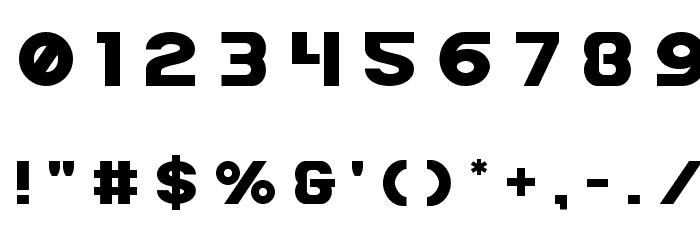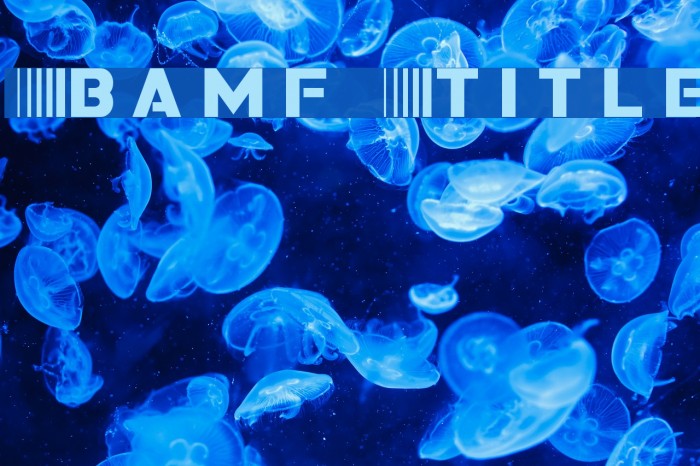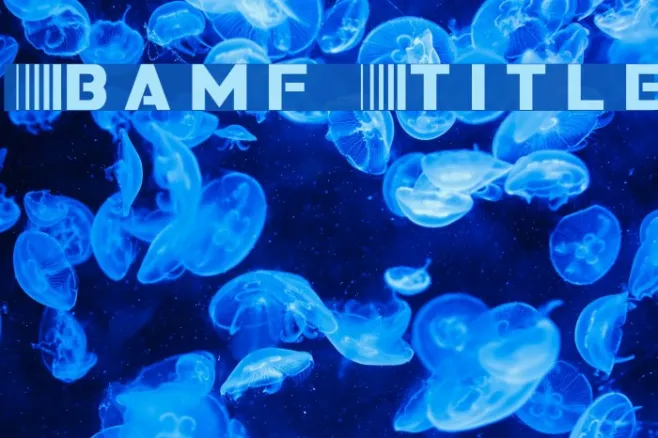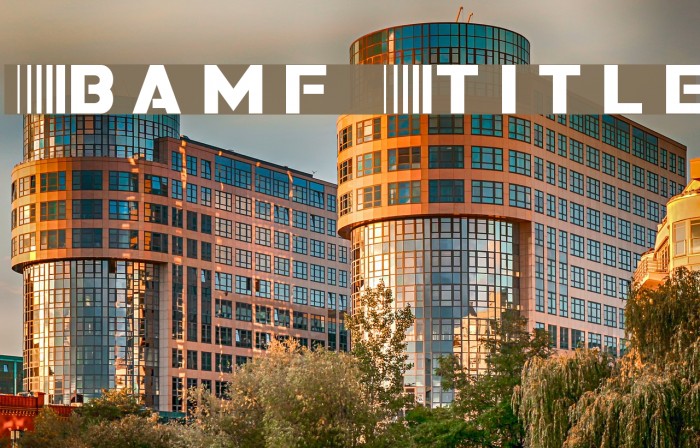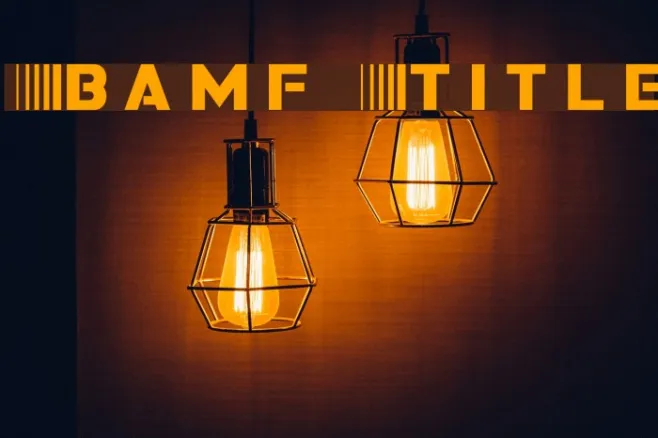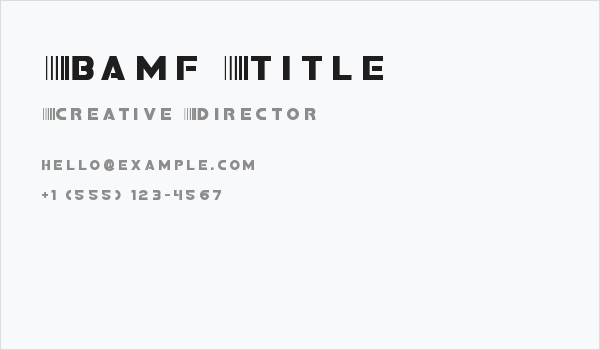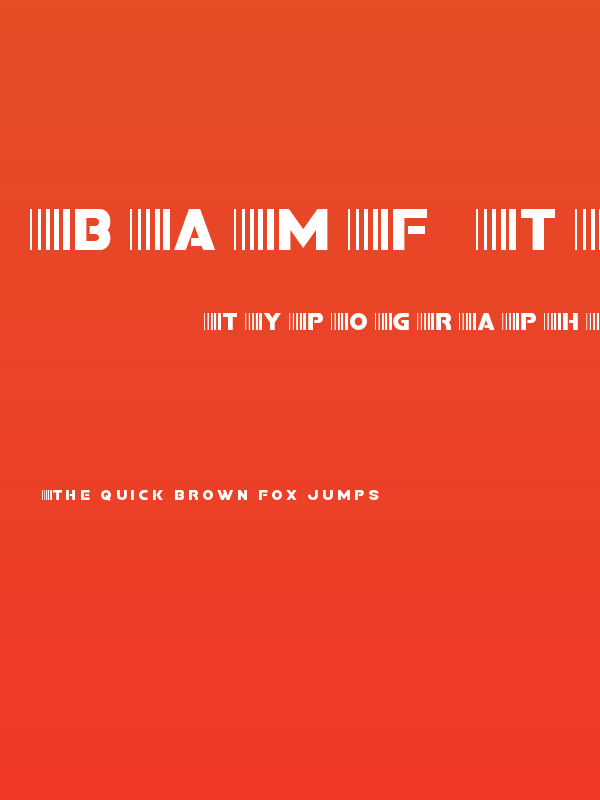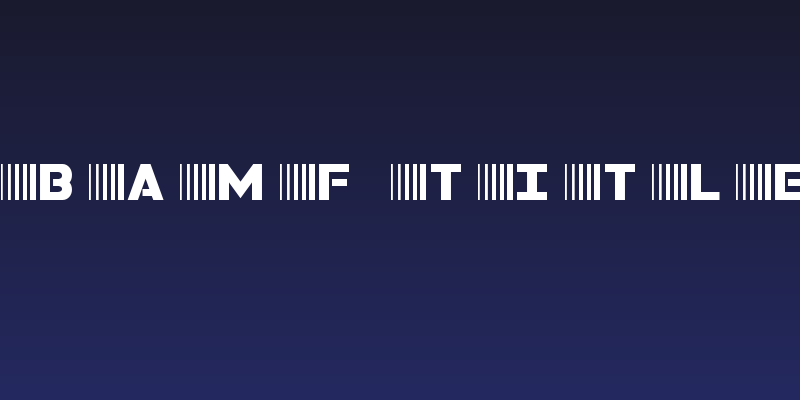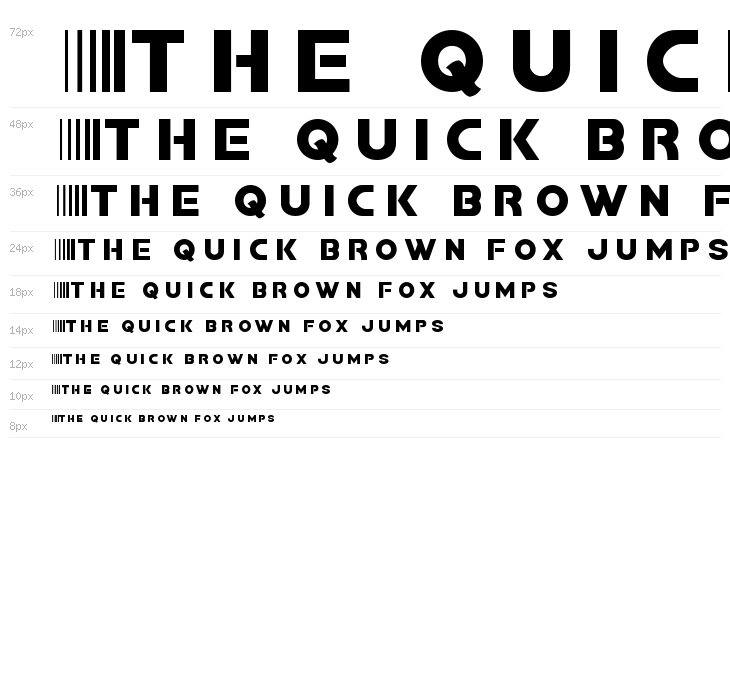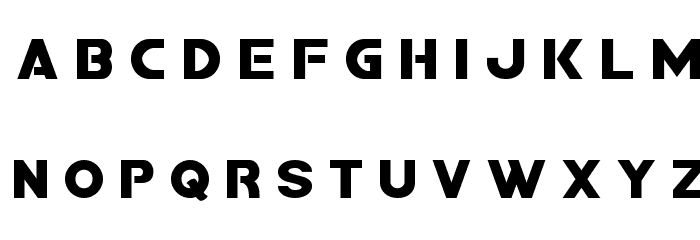
Bamf Title Font
Bamf Title Description
This font features a bold and geometric design with a strong presence. The characters are constructed with thick, uniform strokes that create a sense of solidity and impact. The uppercase letters are particularly striking, with a modern and futuristic aesthetic. The numbers and special characters maintain the same boldness, ensuring consistency across all elements. The overall appearance is clean and minimalistic, making it suitable for attention-grabbing headlines and titles.
| Proposed Projects | Ideal for branding, advertising, posters, and any project requiring a strong visual impact. |